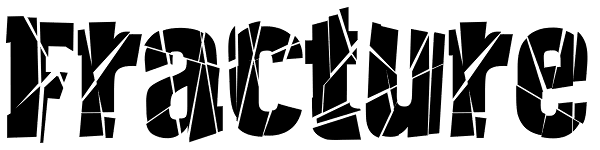
Fracture
Fracture is a broken font -- broken into many pieces -- yet it still conveys a powerful and modern message. It is a funky, in-your-face font that has strong overtones of modern rap and hip-hop culture. Its fragmented look brings to mind graffiti...